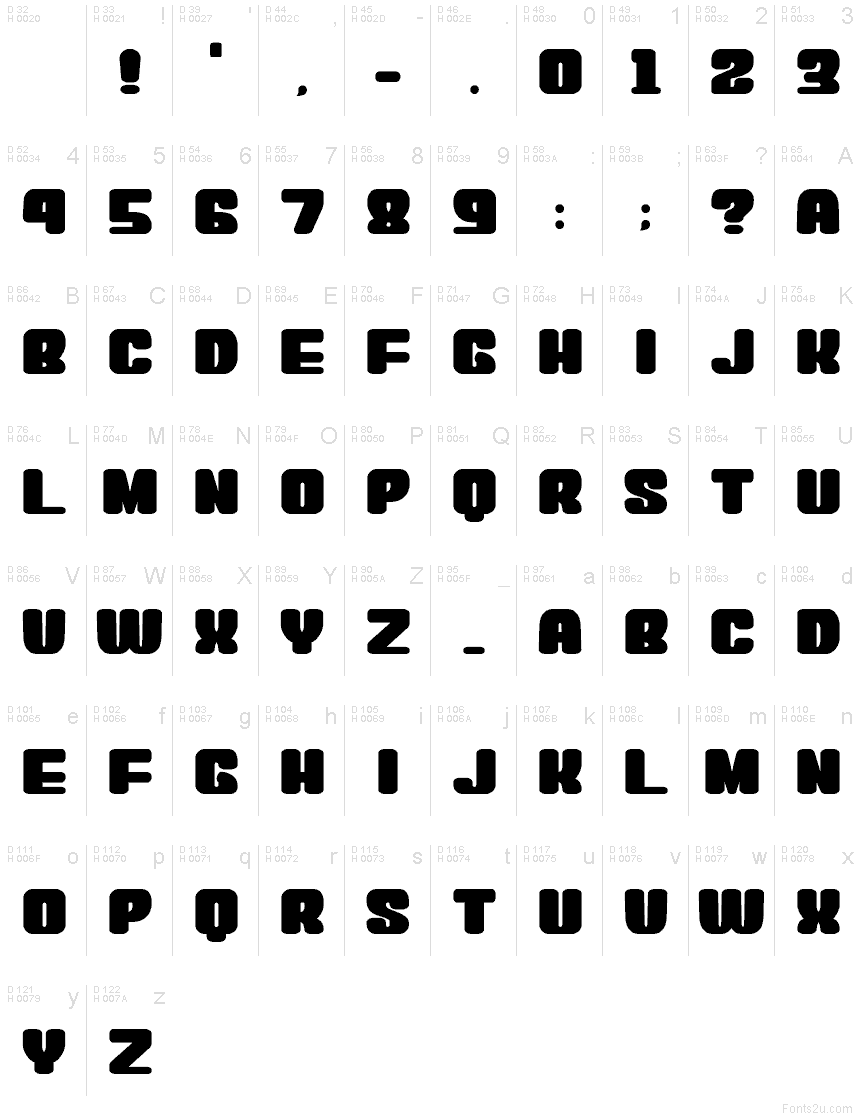
Soft Atama
Soft Atama font by Goma Shin embraces playful curves with a bold look that advances a modern appeal. The free display font has groovy letterforms with soft rounded edges that give each character an approachable effect. Its tone is joyful and casual, yet it manages to retain a modern aesthetic which will remain forever in style.
A broad range of project types can find multiple advantages in using this font when wanting to achieve legibility combined with unique personality. Posters, book covers, social media posts, branding items like logos and business cards, or product packaging are all suitable projects for the typeface when used right.